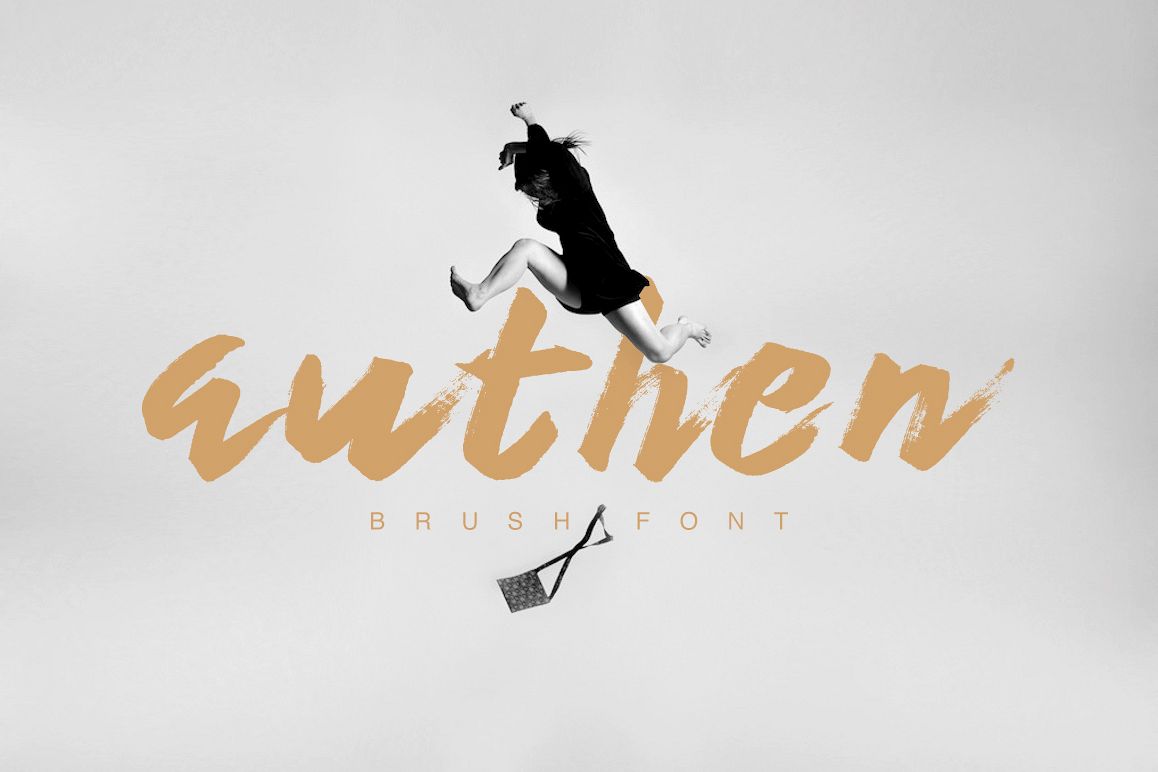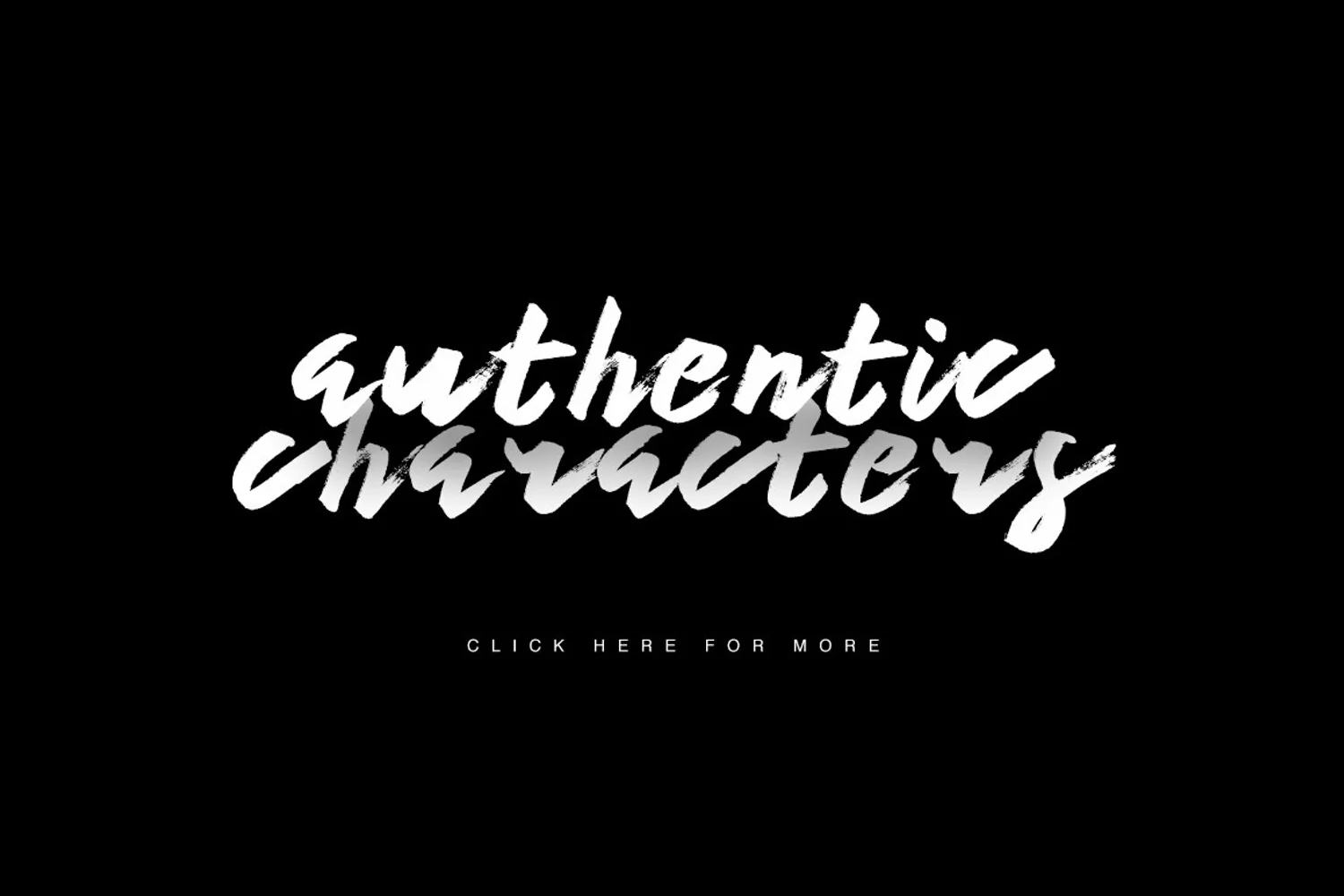
Authen Brush Font
Give your designs an authentic brush handcrafted feel. "Authen Brush Font" is perfectly suited to stationery, logos and much more.Included: